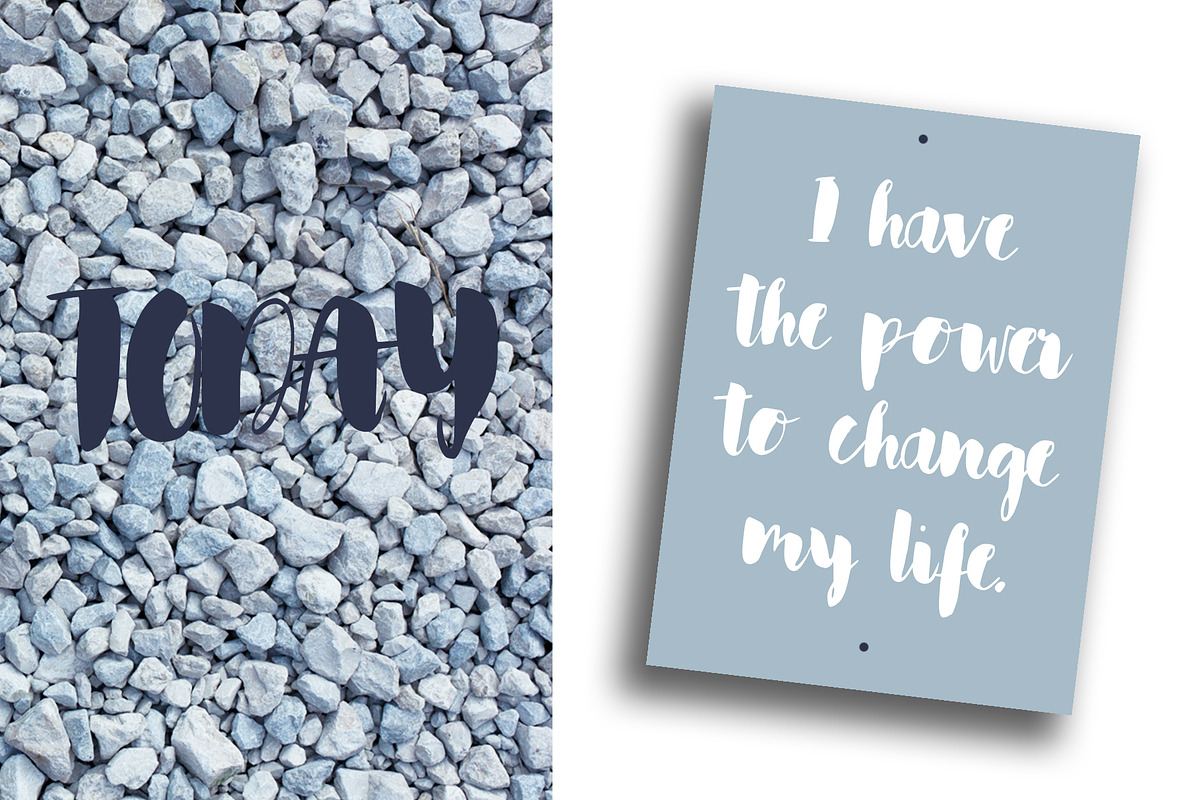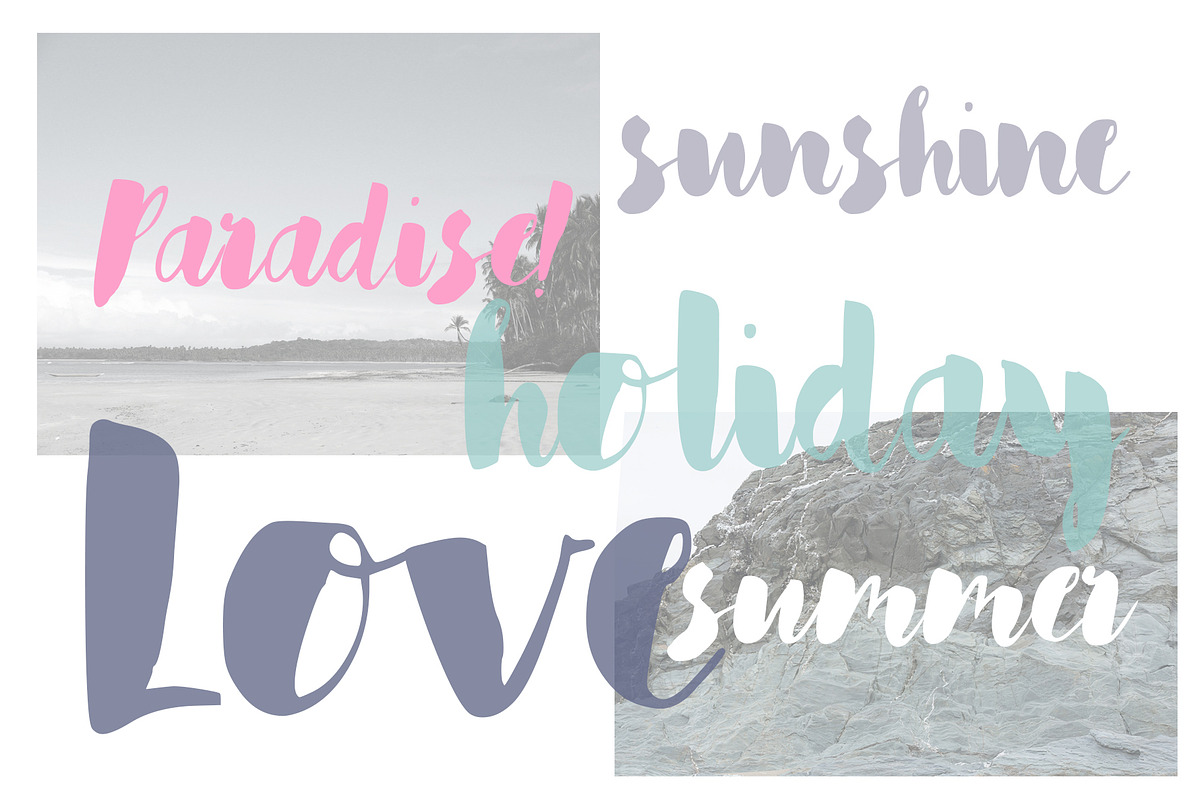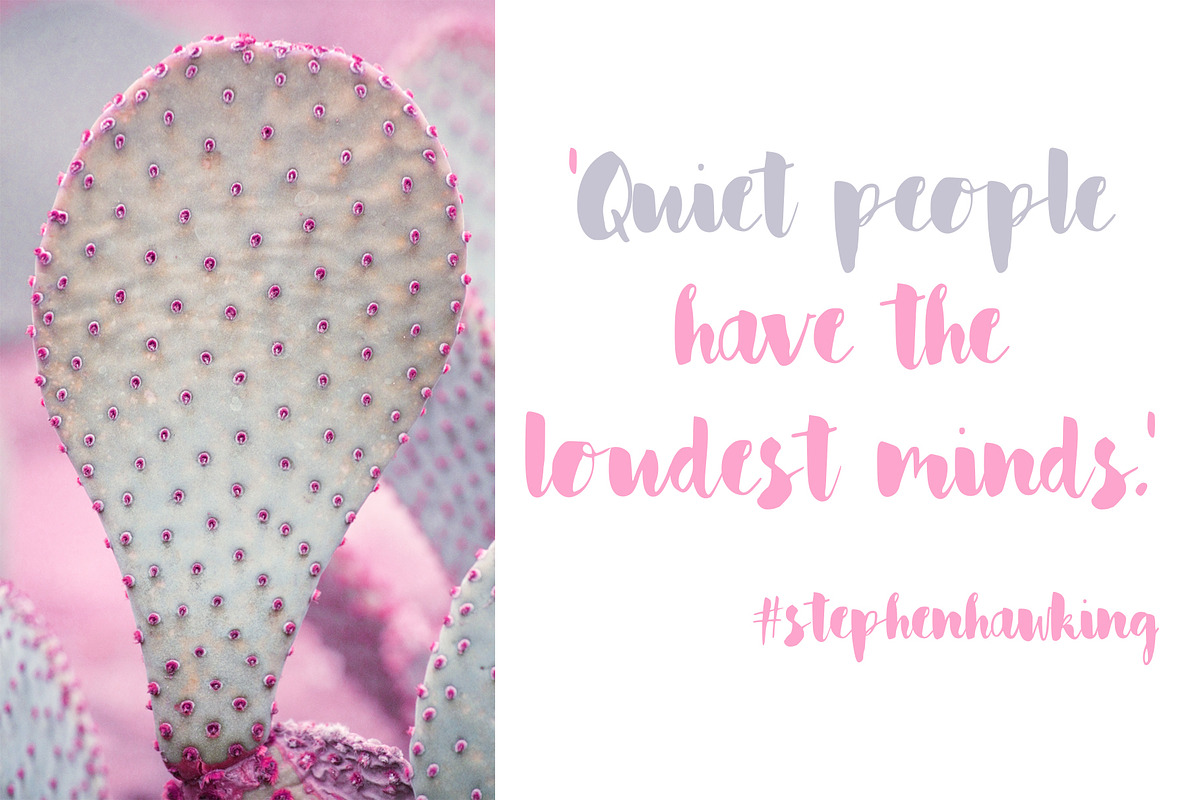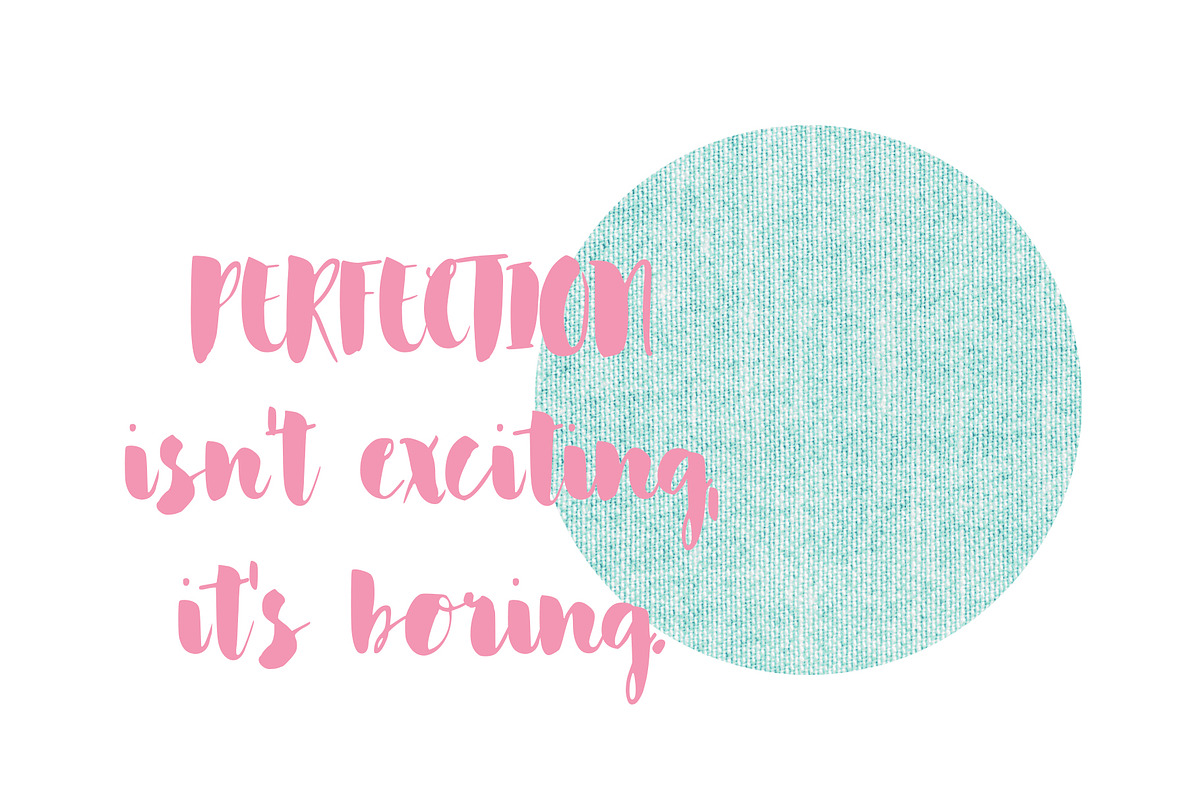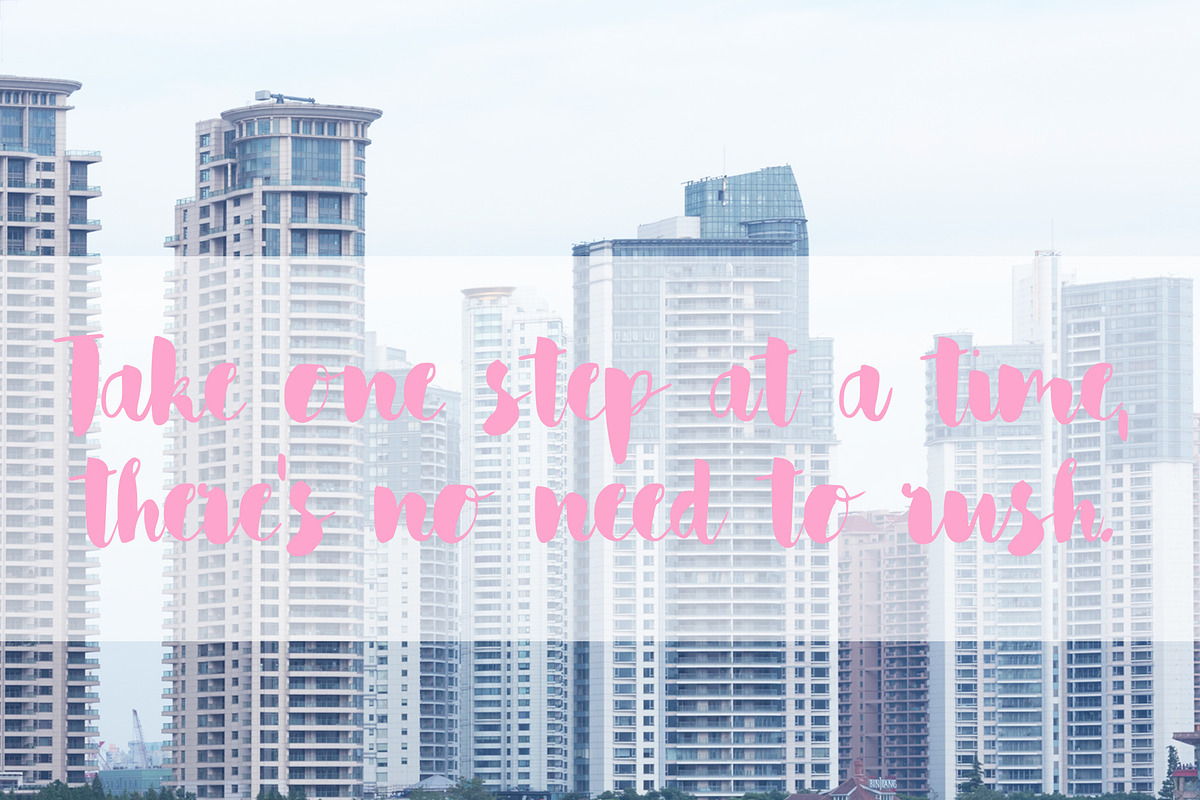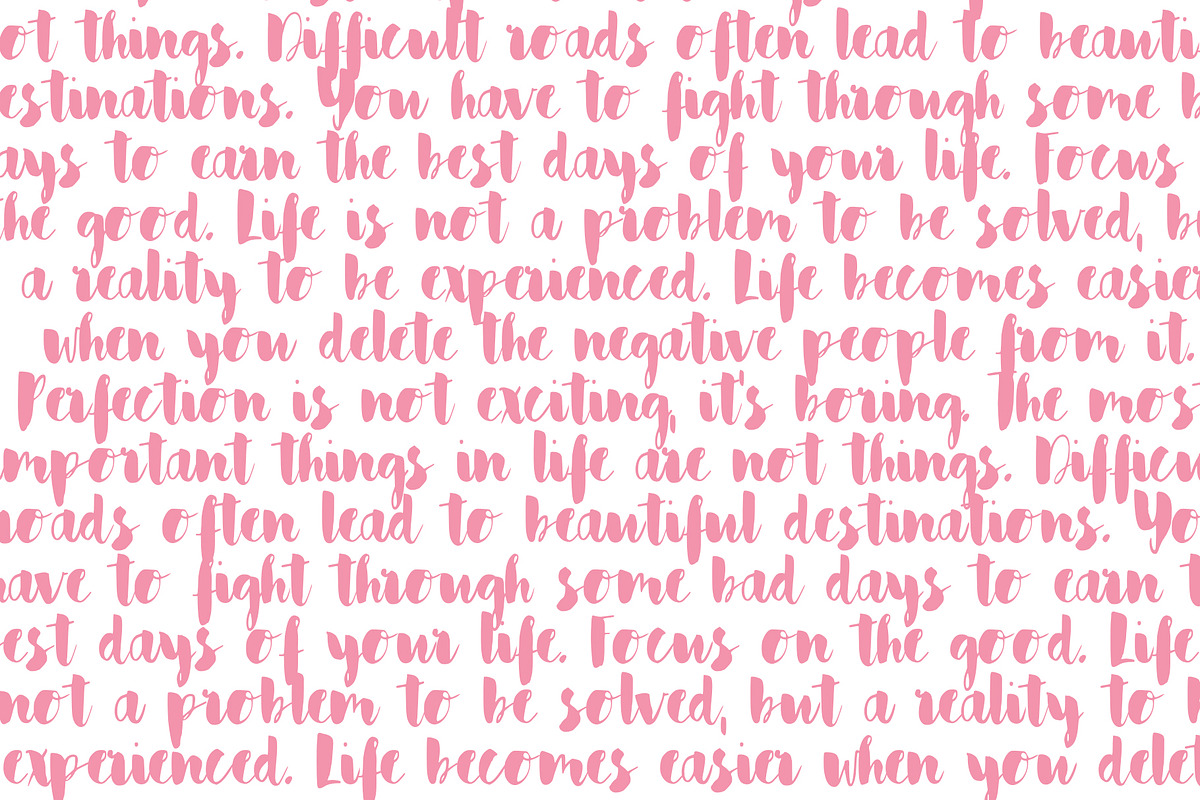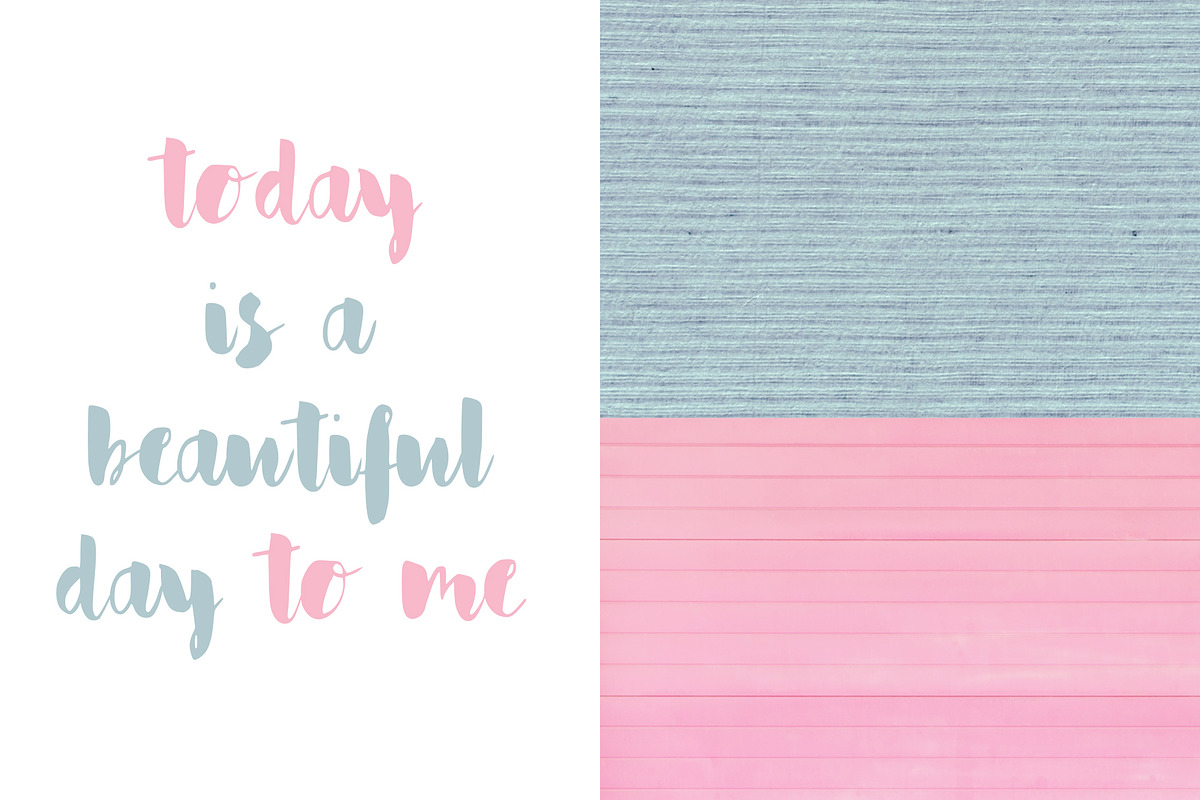
Sven Font
Introducing Sven, a beautiful cursive script.💗 Perfect for any graphic and logo designs, wedding and birthday invitations.
- Sven font contains uppercase & lowercase characters, numbers and punctuations.
Why Sven Font is worth a look
Sven Font by SophieSaxo fits naturally into Branding, posters, packaging, typography.